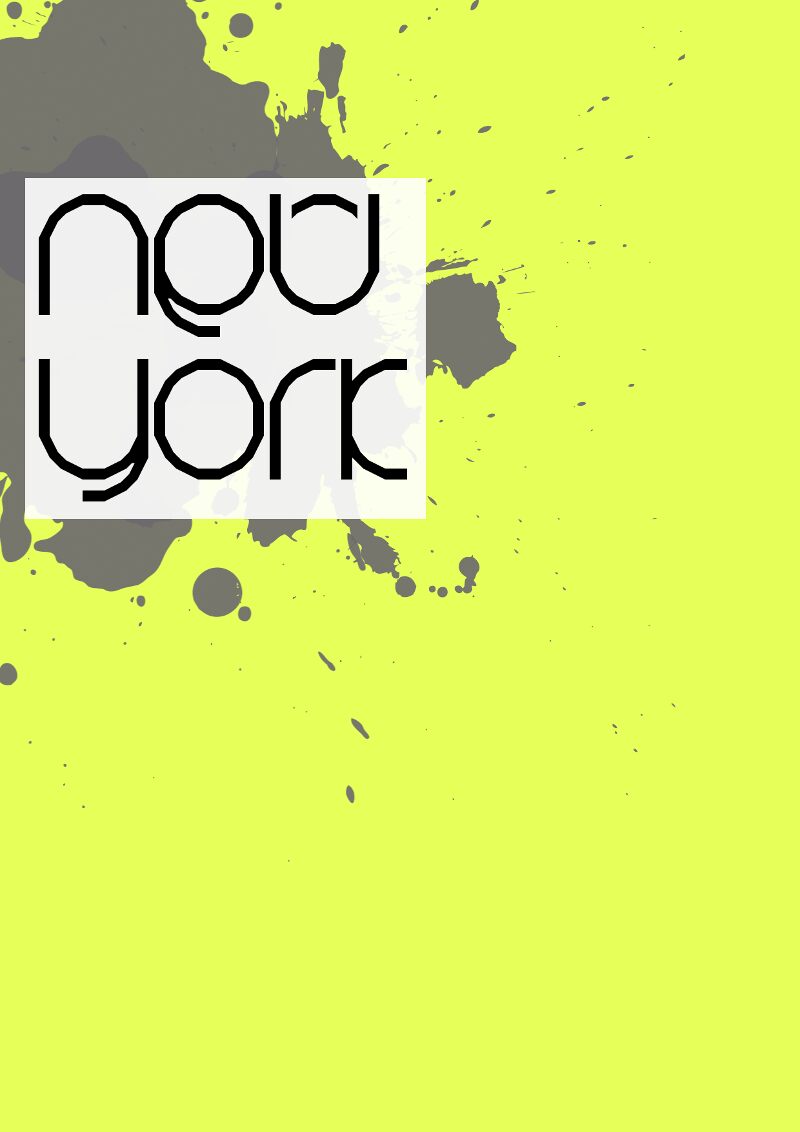
New York Regular
New York is a captivating display font that challenges the conventional norms of typographical design. Crafted with a unique twist, this experimental font revolves around a series of fluid, circular shapes that defy the rigidity often associated with techno-inspired typefaces.
Its light, yet refined weight imbues the design with a sense of modern elegance, making it an ideal choice for fashion-forward branding, advertising, and editorial layouts. The irregular, yet harmonious flow of the characters adds a touch of sophistication, elevating ordinary text into a visually striking statement.
New York's versatility allows it to seamlessly transition across a variety of applications, from digital interfaces to high-end print collateral.
Made in 2009.